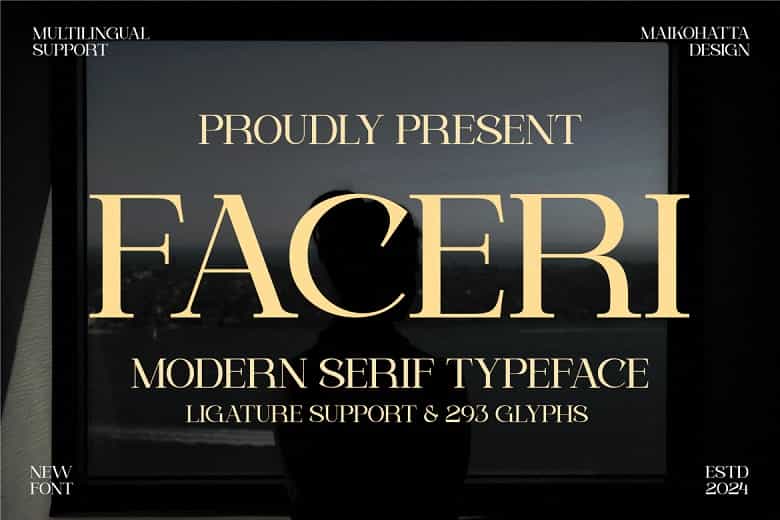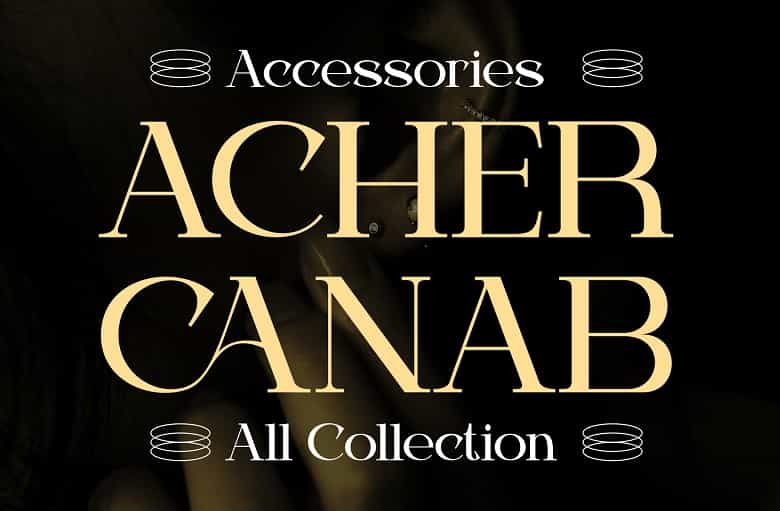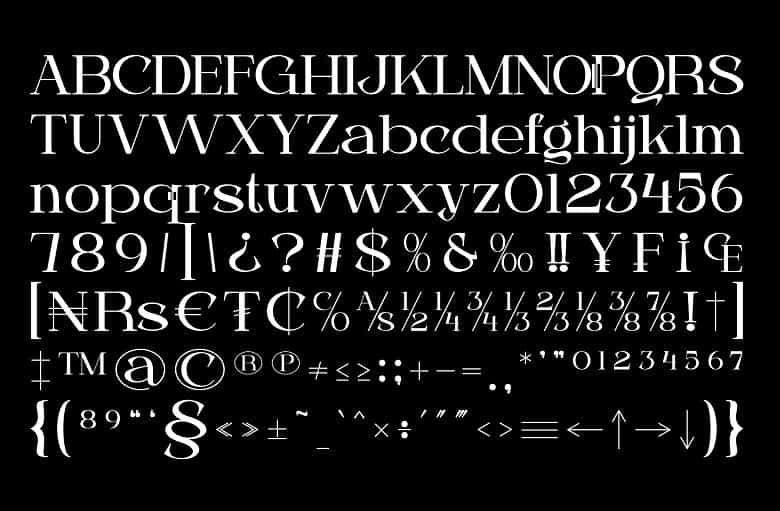
Faceri is a modern serif font inspired by maikofarazhatta. It comes with a well-proportioned stroke which is neither too thin, nor too thick, giving a good aesthetic output and readability. A contemporary serif typeface that is known for featuring the contrast between thick and thin strokes, with a sightly stronger look than the previous style.